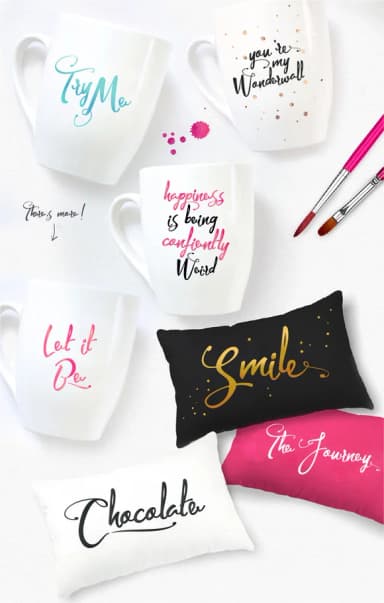
Awesawez Font by Esui Studio is a flowing handwritten script that brings genuine warmth, character, and personality to contemporary design work. This elegant typeface excels across wedding invitation suites, where its organic letterforms and natural curves convey intimate celebration and meaningful connection. It shines equally on boutique product packaging, custom greeting cards, and personalized stationery, where audiences expect authentic craftsmanship and thoughtful visual detail. Whether you're building a small business brand identity, designing personalized event materials, or creating one-of-a-kind pieces, Awesawez adds the distinctive human touch that sets carefully crafted work apart from mass-produced alternatives.
The typeface's graceful strokes and natural rhythm make it remarkably versatile for social media graphics, decorative headlines, and visual branding that demands genuine character and distinctive personality. Designers specializing in artisan food labels, handmade cosmetics packaging, and Etsy shop branding will find its accessible elegance perfectly connects with audiences seeking handcrafted aesthetics and personalized creative expression. Despite its flourishing curves and expressive letterforms, Awesawez maintains excellent legibility throughout, functioning effectively in both prominent design applications and as refined supporting typographic elements within larger compositions and layouts.
Awesawez Font is a script font that shines as a display or heading face. Pair it with a clean sans-serif or serif font for body text — the contrast creates a clear hierarchy while the two styles stay balanced and easy to read.
Awesawez Font
by Esui Studio